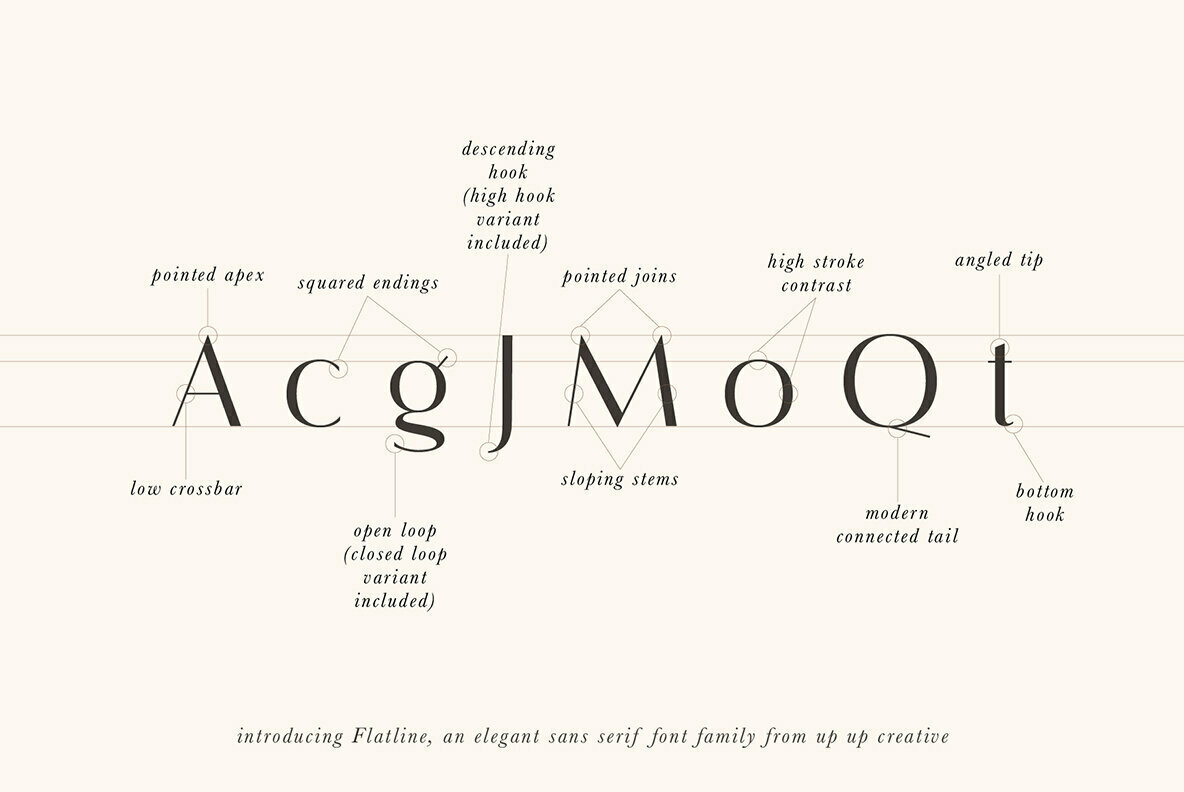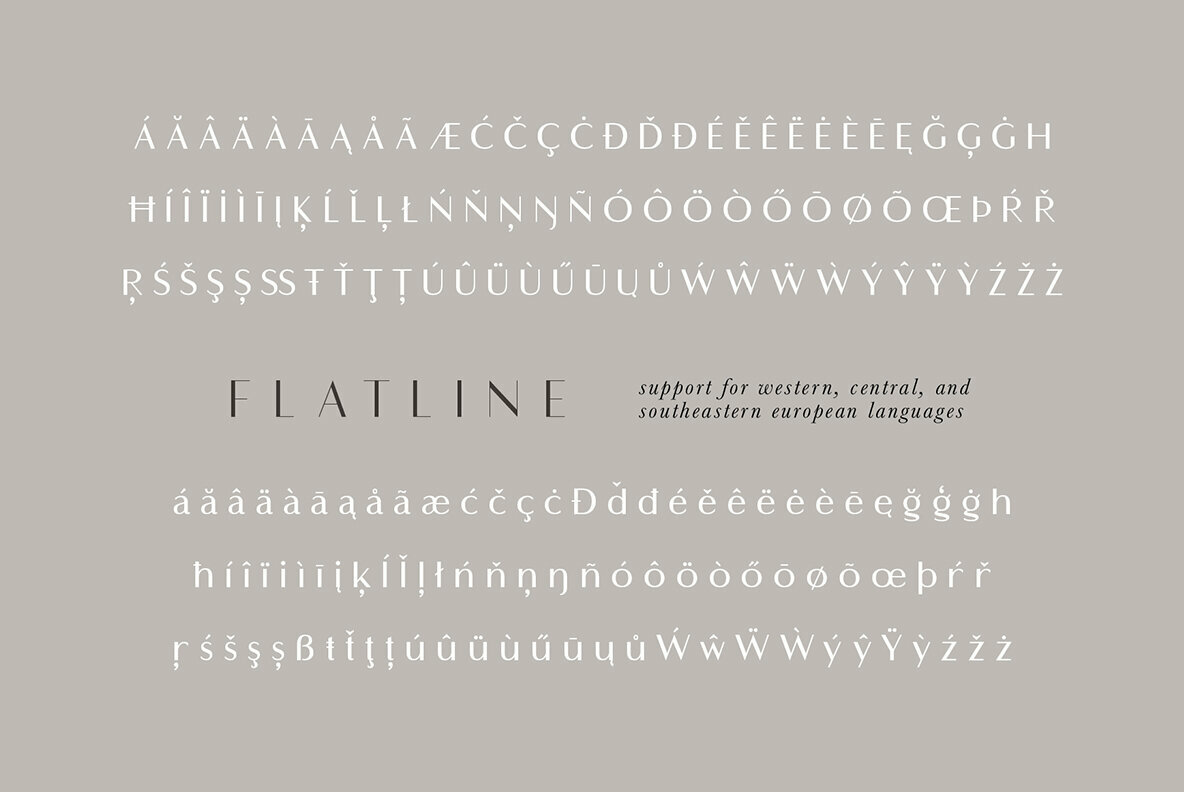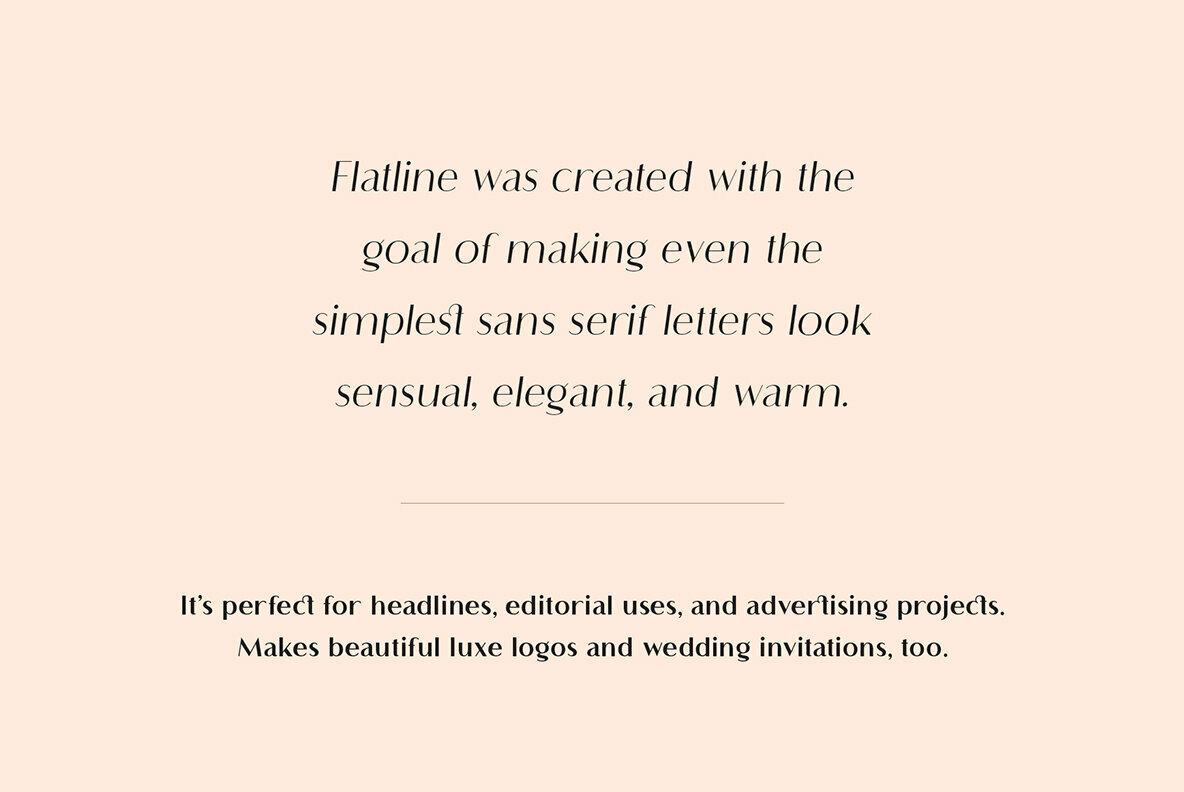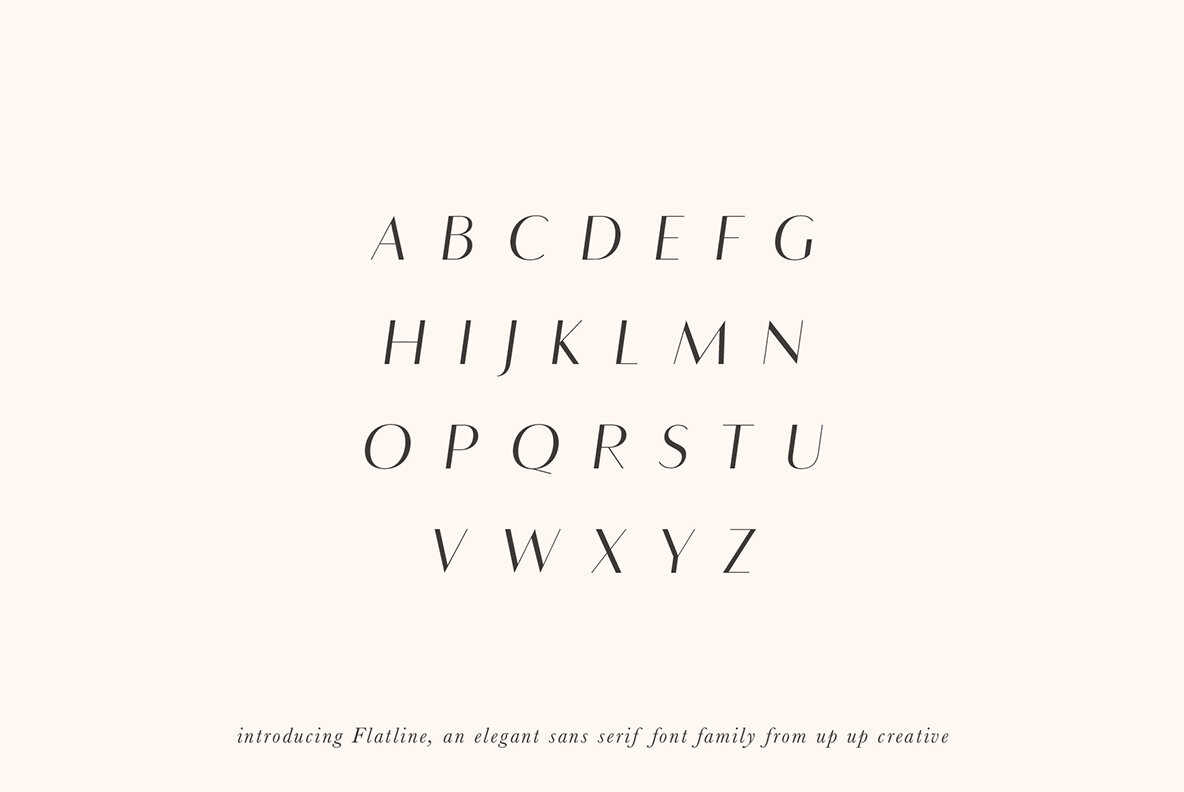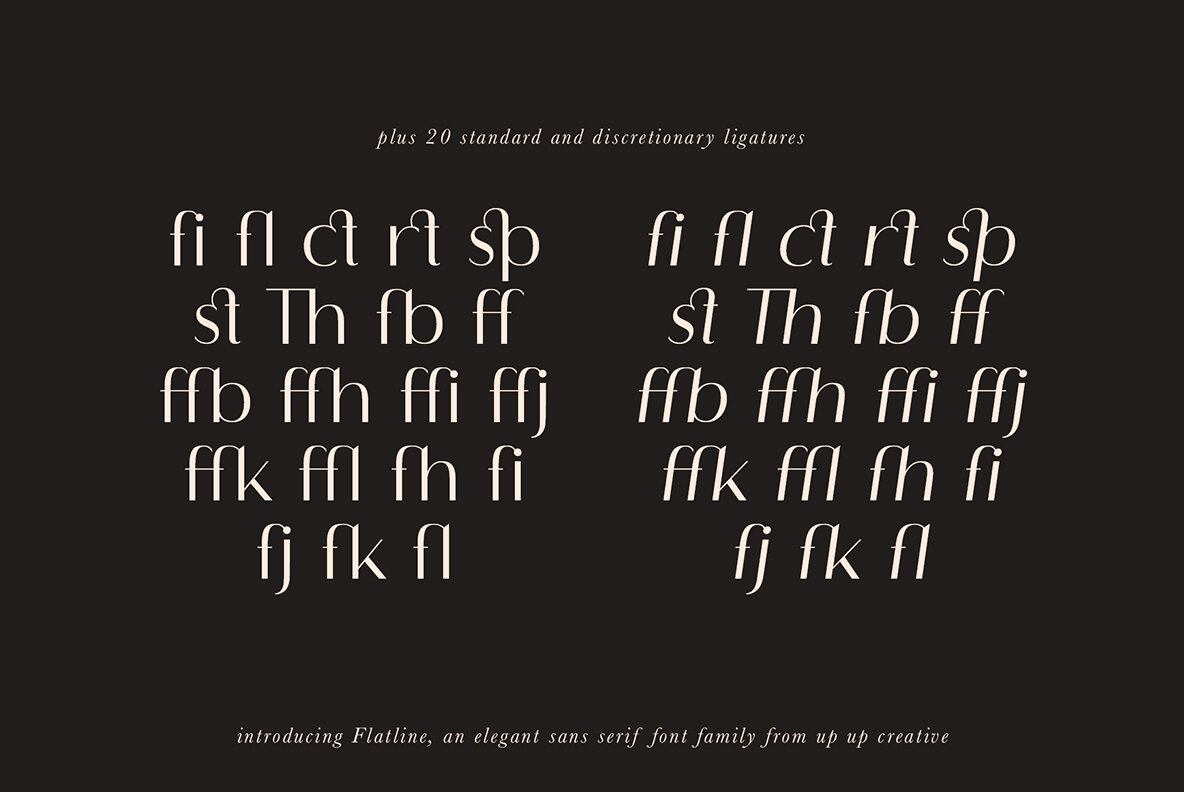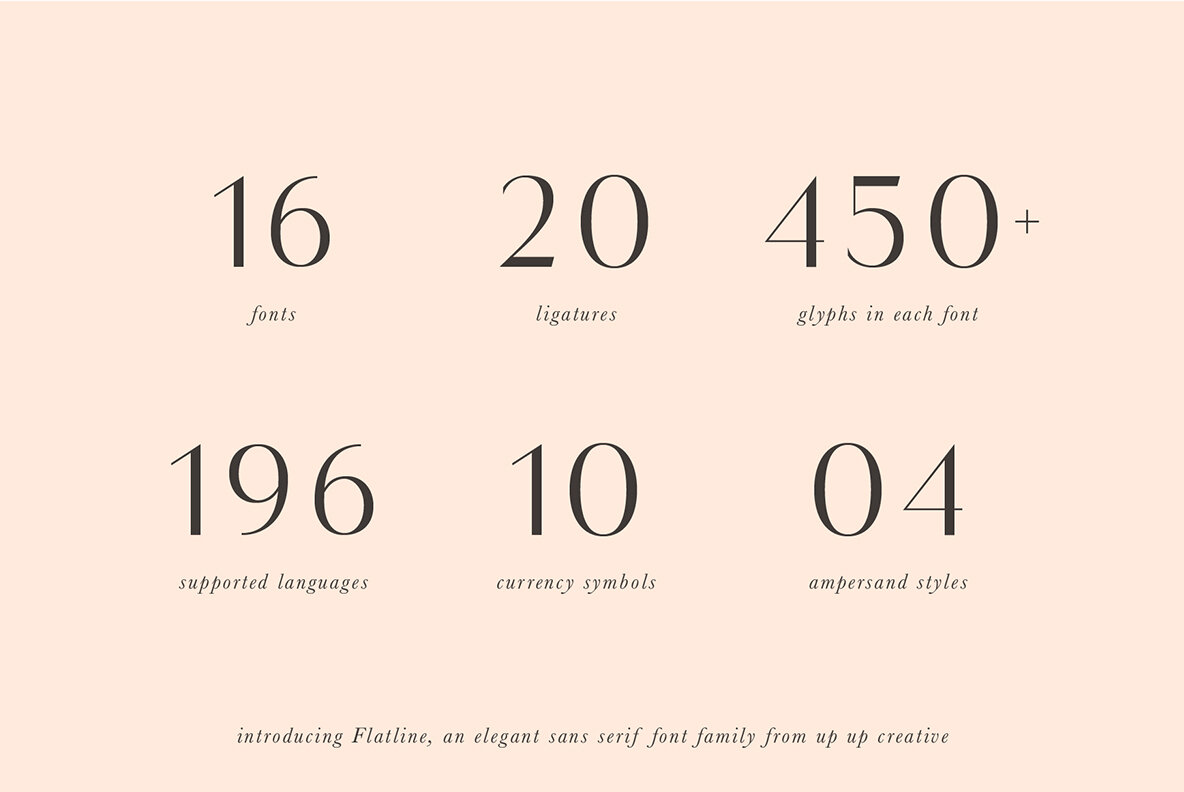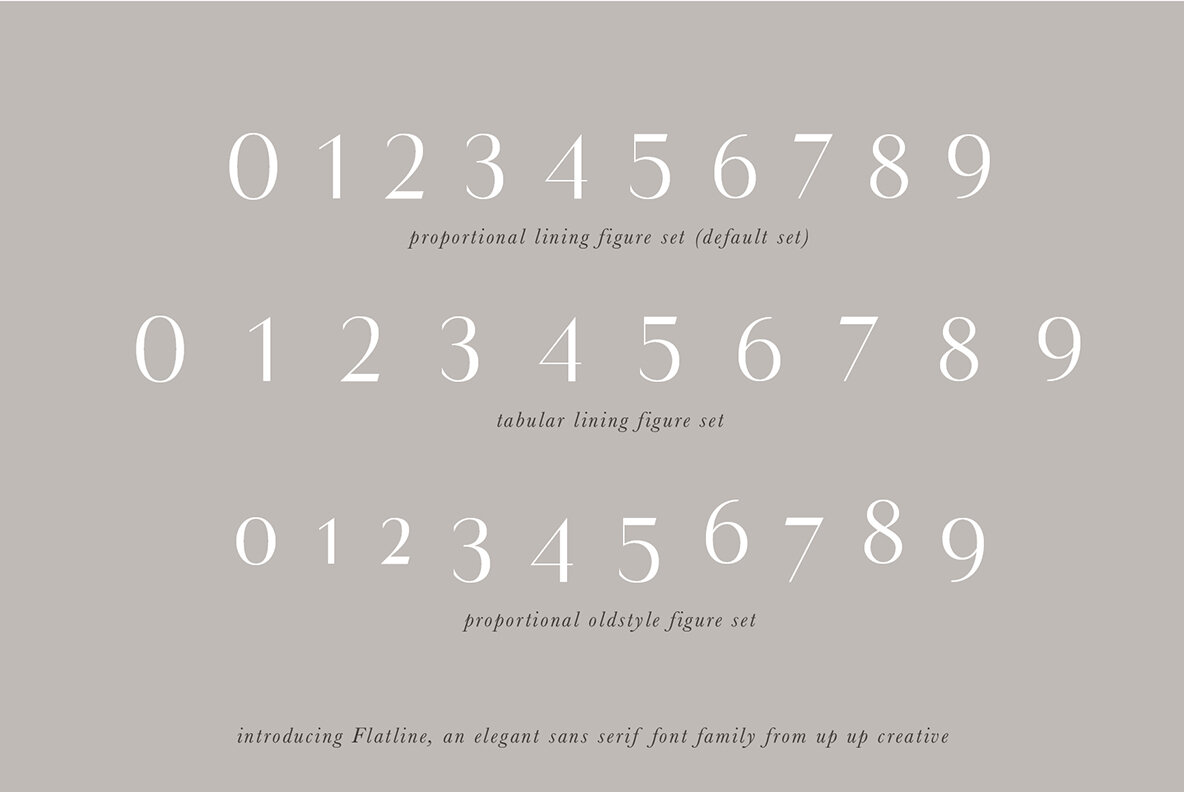
Flatline Sans Font
Flatline is one of our favorite and most popular fonts, and in 2021, we've made a HUGE update (which includes five new weights). That means there are EIGHT weights total, each in regular and italic sets, giving you sixteen fonts with this complete family.
We've also introduced a complementary Flatline Serif family that's available as a separate listing (see
Flatline is an elegant, modern sans serif font family. Meticulously drawn with high contrast between thick and thin strokes with the goal of making even the simplest sans serif letters look sensual, elegant, and warm. It’s perfect for headlines, editorial uses, and advertising projects. Makes beautiful luxe logos and wedding invitations, too.
Flatline includes sixteen styles (eight weights each in both roman and italic), each of which includes nearly 500 glyphs. OpenType features include standard and discretionary ligatures, a small number of character variants, three figure sets, four ampersand styles, and multilingual support (including multiple currency symbols).